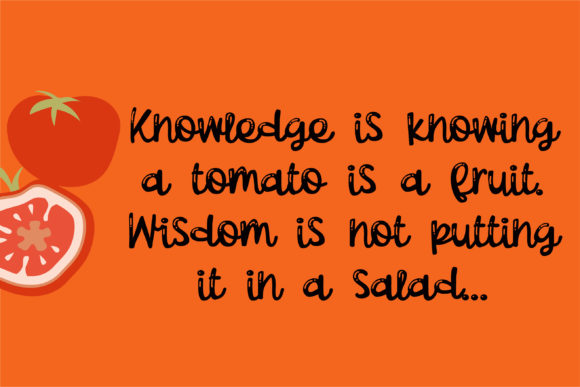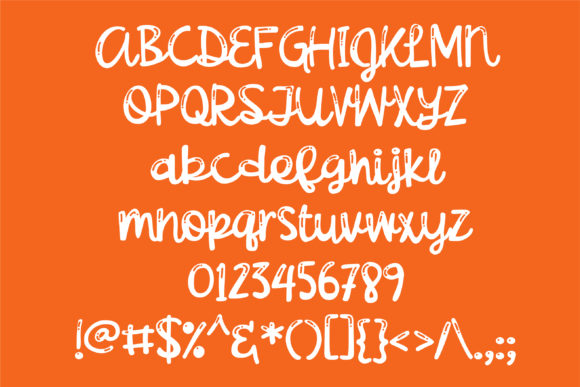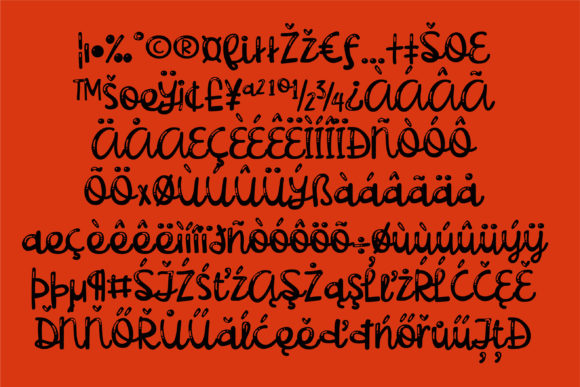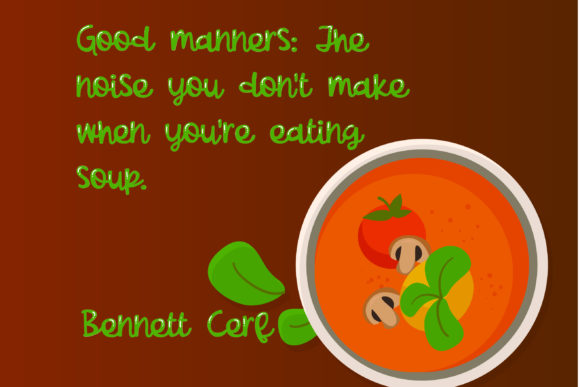
Tomato Sass Font
About Tomato Sass Font
This casual handwritten script has a sloppy loose feel to it and sports a shine mark throughout. Check out her sister font Tomatoes for a coordinated print or the solid version, Tomato Sauce.